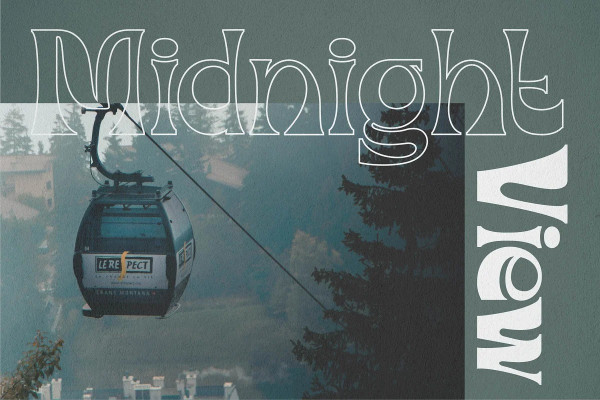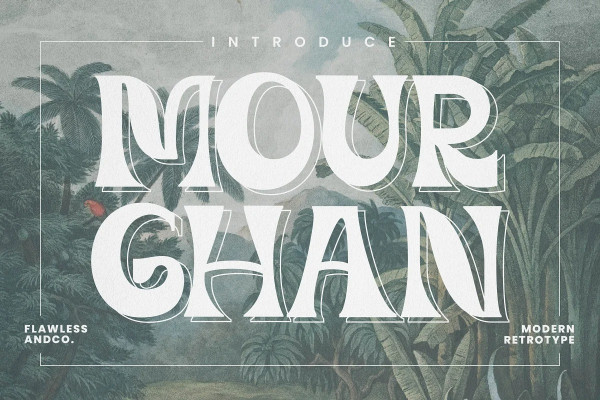
Mourghan Font
Mourghan Font – Modern Retrotypre Serif Font, branding font, boho font, canva font, procreate font, cricut font, logo font, sans serif, our latest creation, modern serif with various alternates and ligatures, multilingual support, an updated blend of bohemian style, suitable for branding, business, logos, magazines, and others